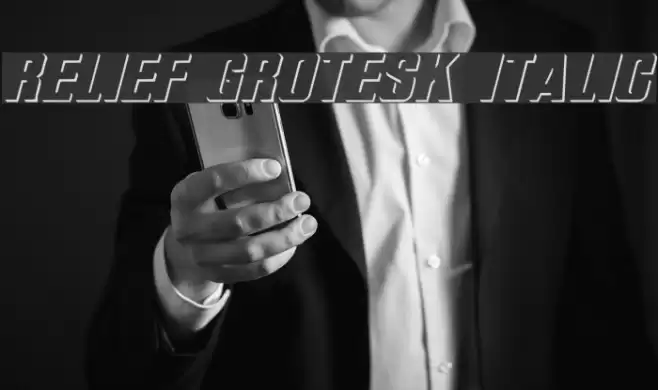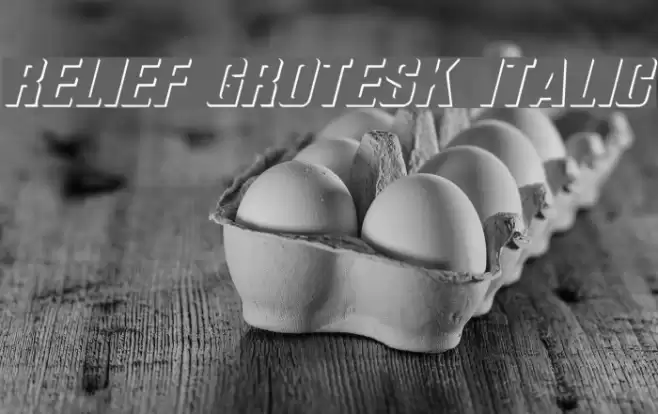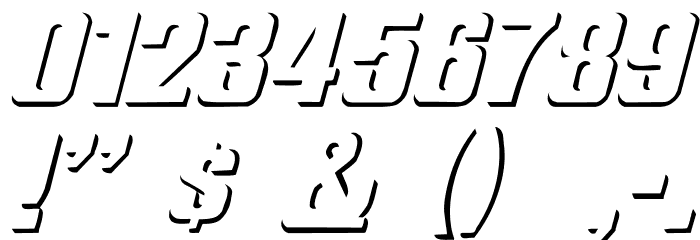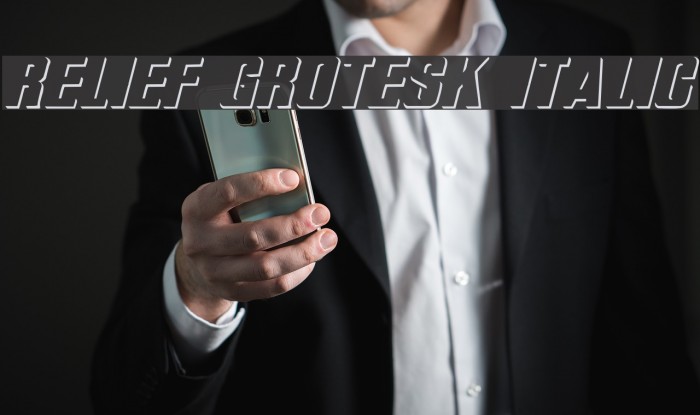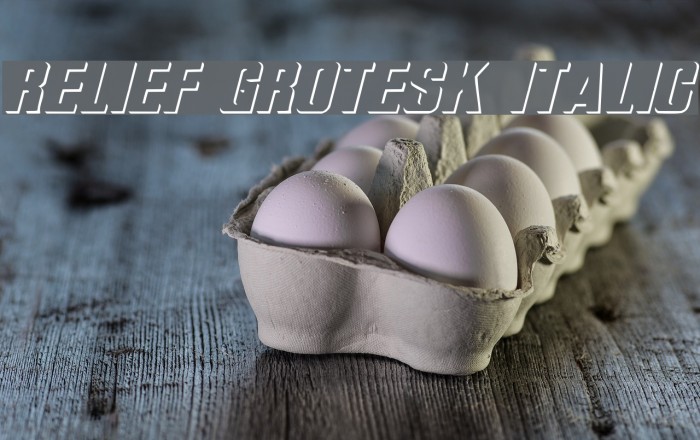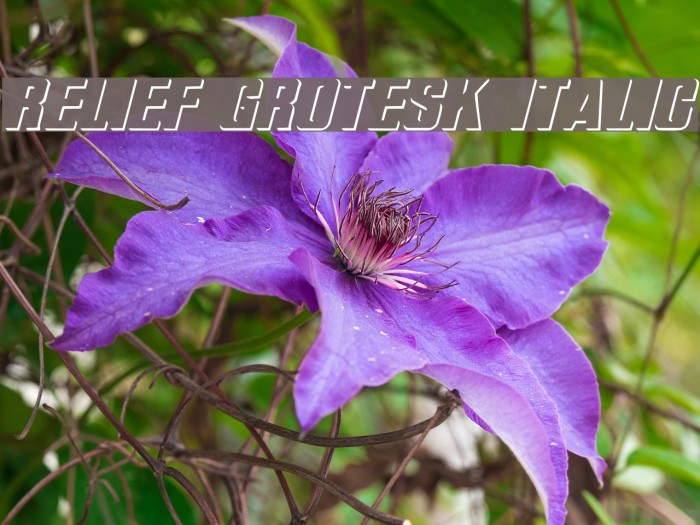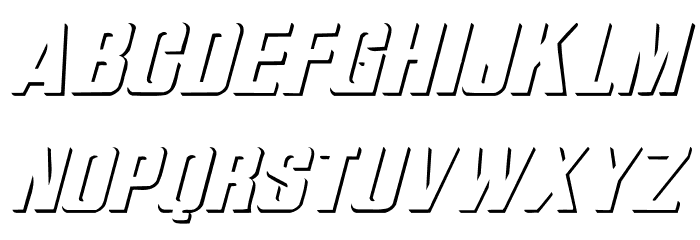
Relief Grotesk Italic Font
Relief Grotesk Italic Description
This font features a bold, italicized style with a distinct three-dimensional effect, achieved through the use of shadowing and relief. The characters are uppercase and lowercase, with numerals and a selection of special characters. The design is modern and dynamic, with a sense of movement and depth that makes it stand out. The strokes are consistent in width, providing a uniform appearance, while the italic slant adds a sense of urgency and forward motion. The font's unique relief effect gives it a sculptural quality, making it ideal for eye-catching designs.
A bold, italicized font with a three-dimensional relief effect from Uncategorized fonts.
- Proposed Projects: Ideal for branding, posters, headlines, and any design requiring a modern, dynamic look.